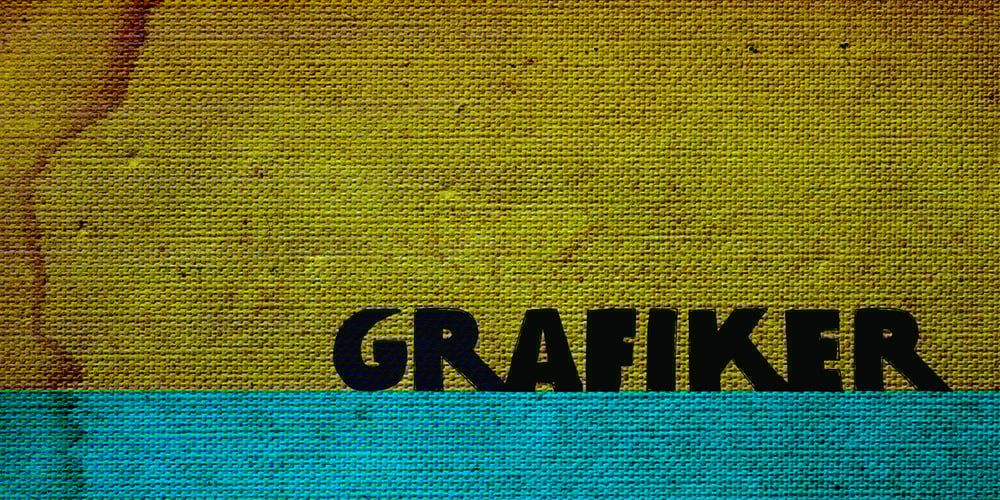
Grafiker Font Family was designed by David Kerkhoff and published by Hanoded. Grafiker contains 1 styles and family package options. Grafiker means ‘Graphic Designer’ in German. This fat, colored, uneven font with a 1001 uses was loosely based on the work of designers Oskar Kokoschka (1886 – 1980) and Jean Carlu (1900 – 1997). The glyphs were hand-drawn with a 0.5 roller ball and colored in with Chinese ink, using a stiff brush. The result is a lively, rather unusual font.